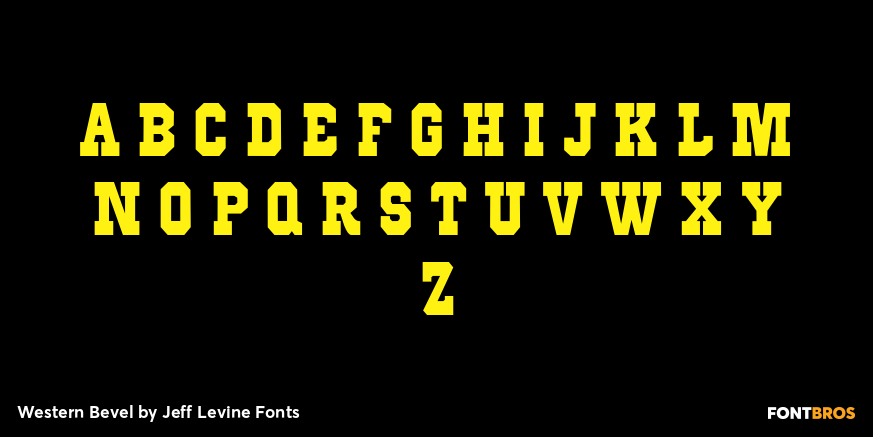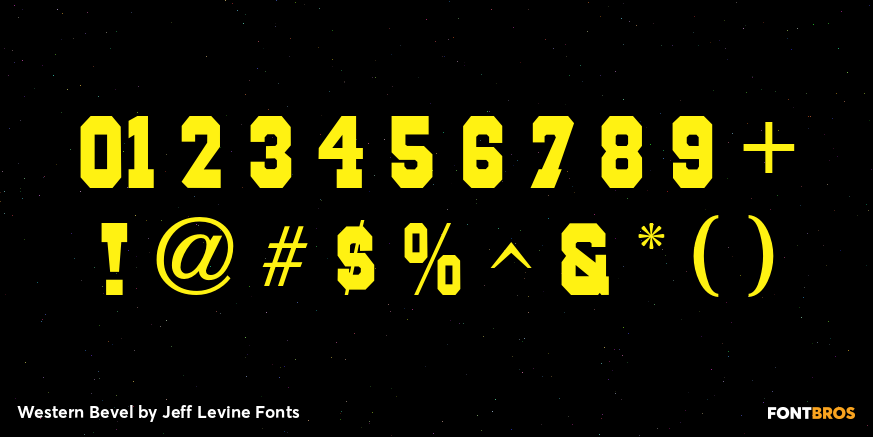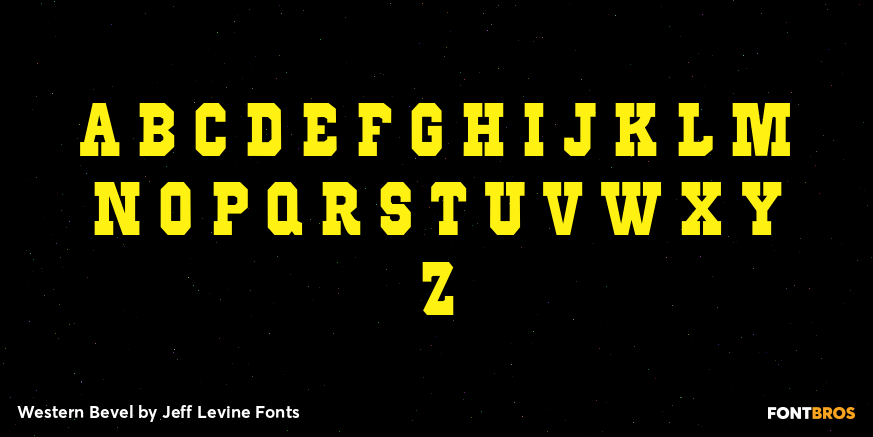
Western Bevel
Western Bevel JNL smooths out the ornate design of Stablehand JNL to offer a cleaner slab serif font that retains its Western wood type feel.
Aside from Western themes, it can be applied to sports team promotions and other nostalgic projects.